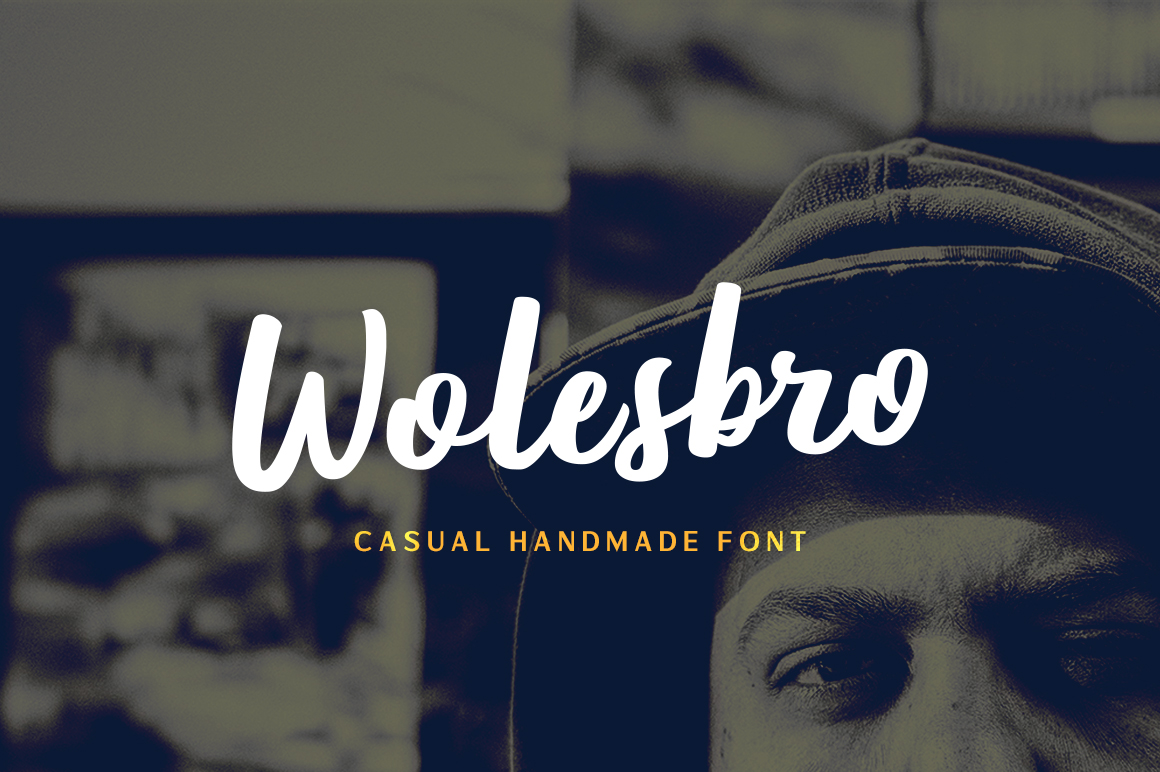
Wolesbro Font: Readable Brush Script for Campaigns
Using Wolesbro Brush Font for Social Media Launch Graphics
Wolesbro is a gorgeous brush font that is perfect for designs that need both style and readability, which became immediately apparent when I was tasked with designing the visual assets for a recent summer product launch. As a marketing specialist, my primary concern wasn't just aesthetic appeal; it was stopping the scroll in a crowded Instagram feed without sacrificing message clarity. When preparing campaign visuals, we often struggle to find Script Handwritten Fonts that don't look messy at small sizes, but this typeface offered a solution that balanced artistic flair with functional communication. The casual and unfussy nature of the letterforms allowed me to create bold headlines for our carousel posts that felt authentic rather than overly manufactured.
In this specific workflow, I needed a display font that could carry the weight of a "New Arrival" announcement while maintaining an approachable, human tone. Many premium script fonts fail here because their intricate swashes become illegible on mobile screens, but Wolesbro maintained its integrity even when scaled down for story overlays. This readability is crucial for digital marketers who know that if a user cannot read the offer in a split second, the engagement opportunity is lost. By utilizing this creative font for the primary hook text, we established a visual hierarchy that guided the viewer’s eye naturally from the headline to the supporting sans serif body copy, ensuring the campaign message was stronger and easier to recognize across all touchpoints.
Wolesbro Typography for YouTube Thumbnails and Video Covers
Creating high-contrast YouTube thumbnails requires Fonts that remain distinct against busy backgrounds, and Wolesbro proved to be an exceptional choice for our video content series. When designing thumbnails for a lifestyle brand, the text needs to compete with vibrant imagery and platform UI elements, making legibility the single most important metric. I integrated this Script Handwritten style into our thumbnail templates specifically because its thick brush strokes provide excellent negative space management, allowing white or bright yellow text to pop against dark or complex photography. Unlike thinner handwritten fonts that disappear in compressed previews, Wolesbro holds its shape, ensuring the video title is instantly decipherable even on smart TV interfaces or small phone screens.
The "blasé vibe" mentioned in the product description translates practically to a sense of effortless confidence in video marketing. We weren't trying to scream at the audience; we were inviting them into a conversation. Using Wolesbro for short, punchy keywords like "Summer Guide" or "Honest Review" added a layer of personality that standard bold sans serifs simply couldn't convey. It bridged the gap between professional production and creator-led authenticity, which is essential for building trust with modern audiences. For content creators managing multiple channels, having a go-to display font that works reliably across different lighting conditions and background colors streamlines the production workflow significantly, reducing the time spent tweaking opacity or adding drop shadows just to make text readable.
Pairing Wolesbro Script Handwritten with Sans Serif Fonts
Effective font pairing is the backbone of cohesive brand identity, and Wolesbro serves as an ideal anchor when combined with clean, modern typography systems. In my campaign workflow, I treated this brush font as the emotional voice of the brand, while relying on a geometric sans serif font to handle the logistical details like dates, pricing, and URLs. Because Wolesbro is casual and unfussy, it doesn't fight for attention with minimalist typefaces; instead, it creates a pleasing contrast that enhances overall design balance. This strategic pairing is vital for landing page headers and email banners where you need to capture attention emotionally before delivering factual information rationally.
When building promotional content sets, consistency is key to brand recognition. I found that Wolesbro pairs exceptionally well with neo-grotesque sans serifs for e-commerce graphics, as the organic texture of the brush script softens the commercial hardness of sales copy. For example, in a webinar promotion, the font handled the inspirational title while the supporting typeface managed the speaker bio and registration button text. This division of labor ensures that the design remains accessible and scannable. Marketers should avoid pairing this typeface with other highly decorative scripts, as the competing personalities can create visual noise. Instead, let Wolesbro stand alone as the primary display element, using simpler Fonts to support the user journey toward conversion.
Applying Wolesbro in Email Banners and Digital Ad Sets
Digital advertising demands immediate impact, and Wolesbro provides the visual weight necessary to make static ads feel dynamic and personal. When designing a set of Facebook and Pinterest ads for a seasonal sale, I utilized this Script Handwritten category to differentiate our paid media from generic competitor ads. The organic flow of the brush strokes mimics natural handwriting, which psychologically signals to users that the content is crafted rather than automated. This subtle cue can improve ad performance by fostering a sense of connection before the user even processes the offer. However, readability remains paramount; I ensured that the text was kept to three or four words maximum per line to prevent the casual vibe from becoming cluttered.
For email marketing banners, the challenge is often rendering consistency across different email clients. Wolesbro performed reliably when embedded as a web-safe image or outlined vector, maintaining its gorgeous aesthetic without breaking layout structures. The font’s inherent style allows for shorter subject-line-style headlines within the banner itself, such as "Your Weekend Edit" or "Last Chance," which resonate better than stiff corporate phrasing. When using this typeface in paid campaigns, always test how it looks against both light and dark mode backgrounds. Its robust stroke width generally adapts well, but checking contrast ratios ensures accessibility compliance. This practical versatility makes it a valuable asset in a marketer's toolkit for creating varied yet consistent ad creatives that drive clicks without looking spammy.
Before deploying Wolesbro in any client campaign or merchandise project, verifying the commercial font licensing and included assets is a critical step in the professional workflow. As marketers, we must ensure that our use of Script Handwritten Fonts aligns with legal requirements for digital ads, templates, and physical products. This typeface typically comes with multilingual support and various alternates, which are indispensable for global campaigns or brands targeting diverse demographics. Checking for OpenType features like ligatures and stylistic sets allows designers to customize the blasé vibe further, preventing repetitive letter connections that can make branded content look templated.